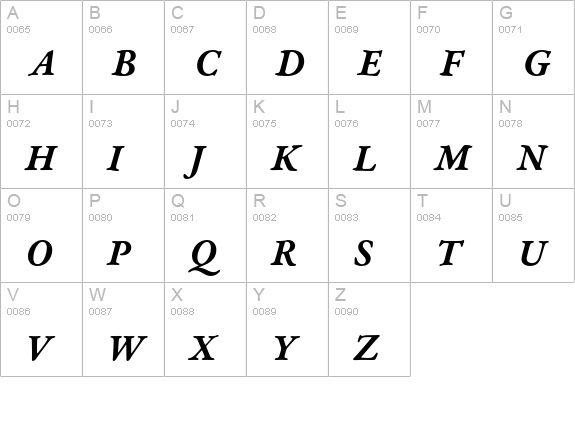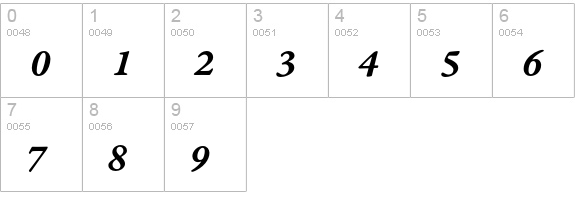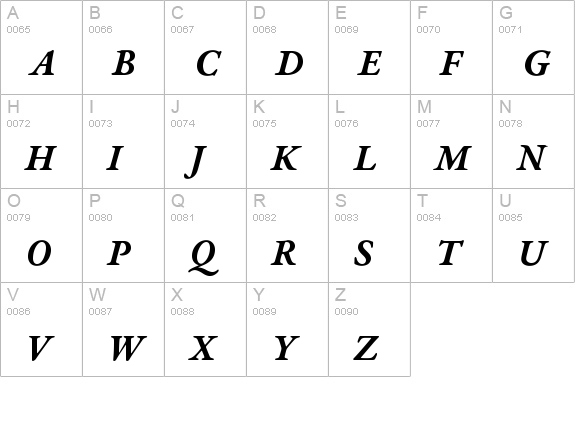
Garamond Premier Pro Semibold Italic Caption Font Details
Garamond Premier Pro Semibold Italic Caption is a sub-bold, structured, italic variant in the Garamond typeface family \xE2\x80\x94 well suited to sub-headlines and emphasised passages.
Garamond Premier Pro Semibold Italic Caption font is a sophisticated and elegant typeface that exudes professionalism and style. Its sleek and slanted design adds a touch of flair to any text, making it perfect for captions, headings, and other display purposes. The semibold weight gives it a strong presence on the page, while the italic styling adds a sense of dynamism and movement. This font is ideal for conveying a sense of authority and sophistication in projects such as editorial design, branding, and luxury packaging. Its versatility allows it to be used in a variety of contexts while maintaining a consistent and polished look. The best part is that Garamond Premier Pro Semibold Italic Caption font is freely available to download at FontsMarket.com. Whether you're a designer looking to add a touch of elegance to your work or a business owner wanting to elevate your brand's visual identity, this font is a fantastic choice that won't cost you a penny. Download it today and enhance your designs with this timeless and classic typeface.